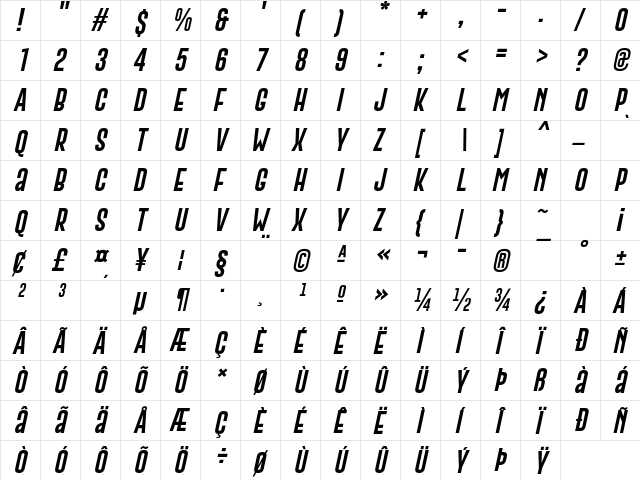
Gobold Extra2 Italic
| Foundry | Situjuh Font |
| Designer | Situjuh Nazara |
Design Context for Gobold Extra2 Typeface
Gobold Extra2 is a composed and adaptable typeface that performs quietly and consistently across a wide range of design contexts. The slanted form adds forward momentum and visual energy. Its bold stroke weight gives it real presence on the page.
Pro Tip: Use Gobold Extra2 for emphasis, pull quotes, and subheadings where its slanted energy can add rhythm to the layout.